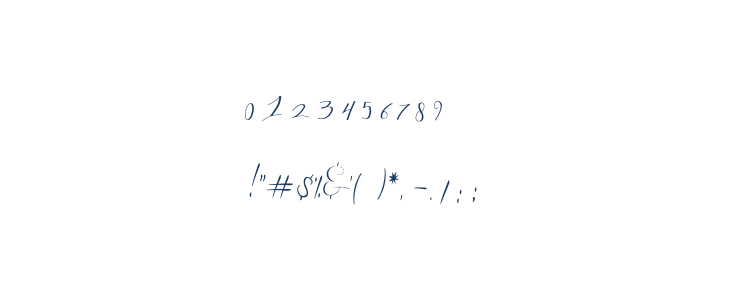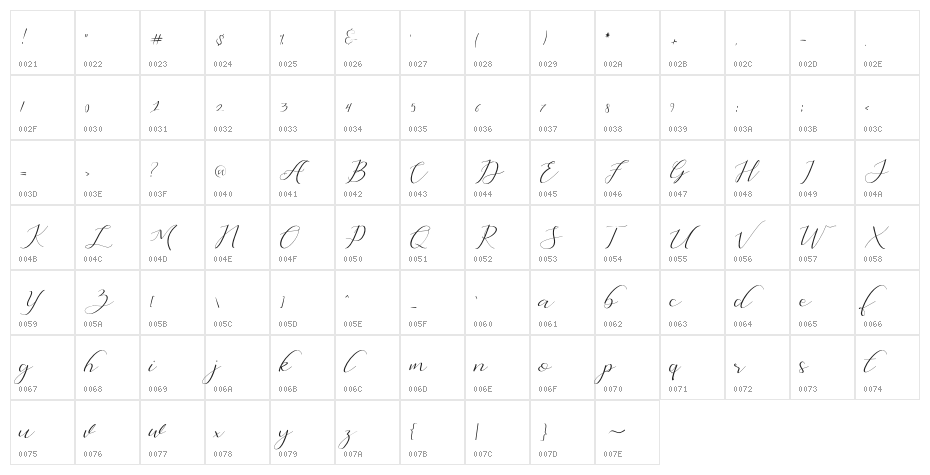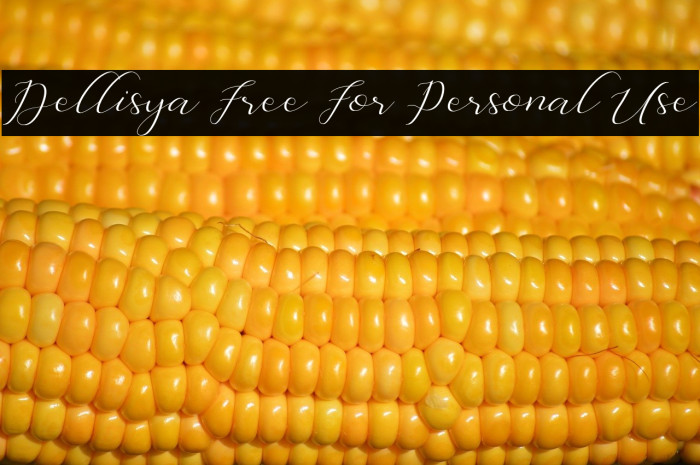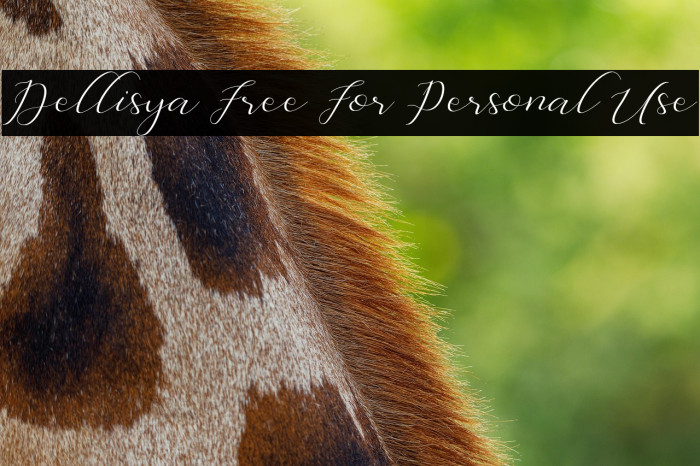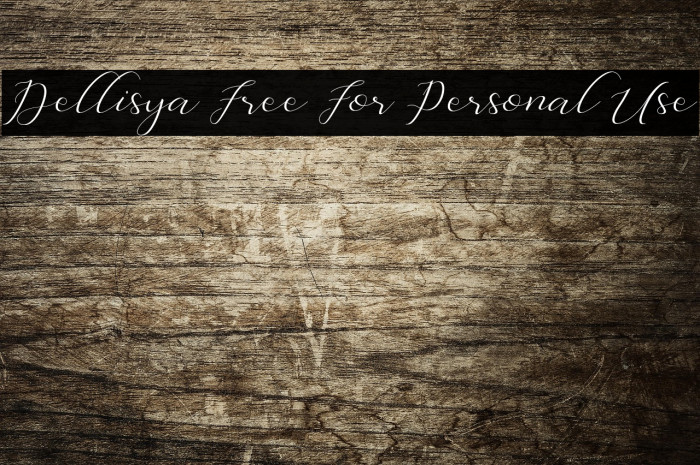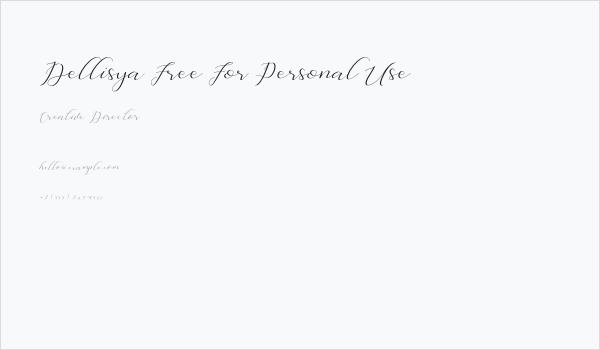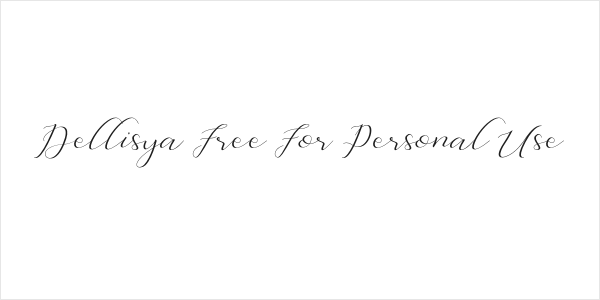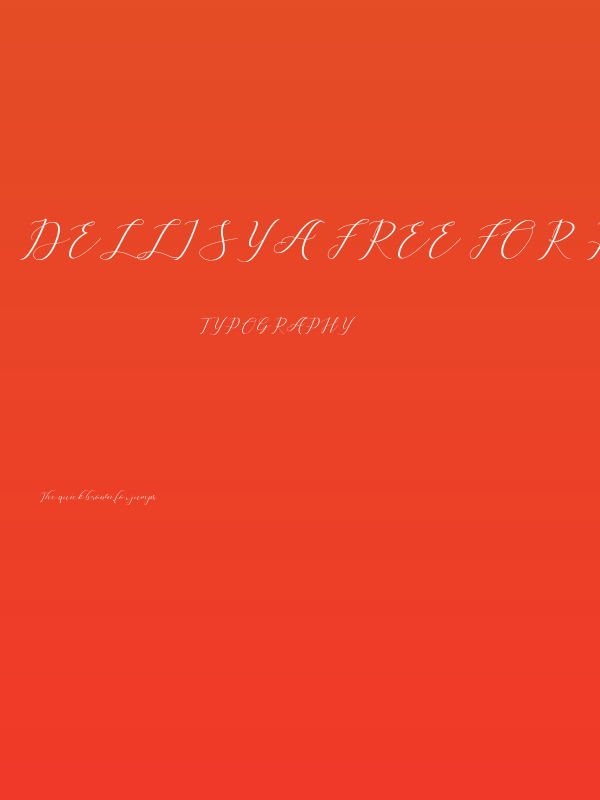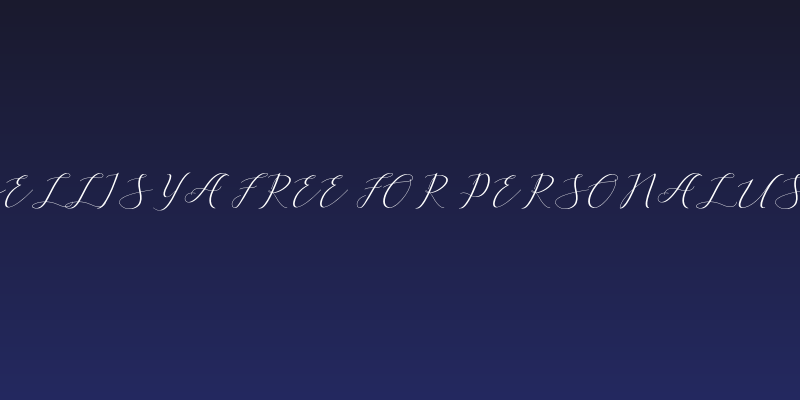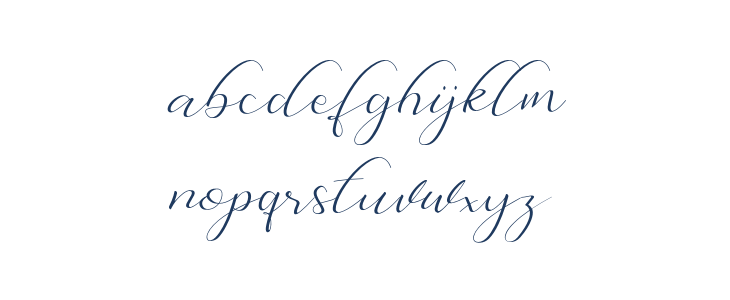
Dellisya Free For Personal Use Font
Dellisya Free For Personal Use Description
This elegant script font features graceful, flowing lines that mimic the fluidity of traditional calligraphy. Each character is intricately designed with delicate curves and flourishes, giving it a sophisticated and artistic appearance. The uppercase letters are particularly ornate, with extended strokes that add a sense of movement and flair. The lowercase letters maintain a consistent style, offering a harmonious blend of readability and decorative appeal. The numerals and special characters are crafted with the same attention to detail, ensuring a cohesive look across all text. This font is perfect for projects that require a touch of elegance and refinement.
| Overall Style | Elegant, Artistic |
| Proposed Projects | Wedding invitations, elegant branding, greeting cards, luxury packaging, and artistic posters. |